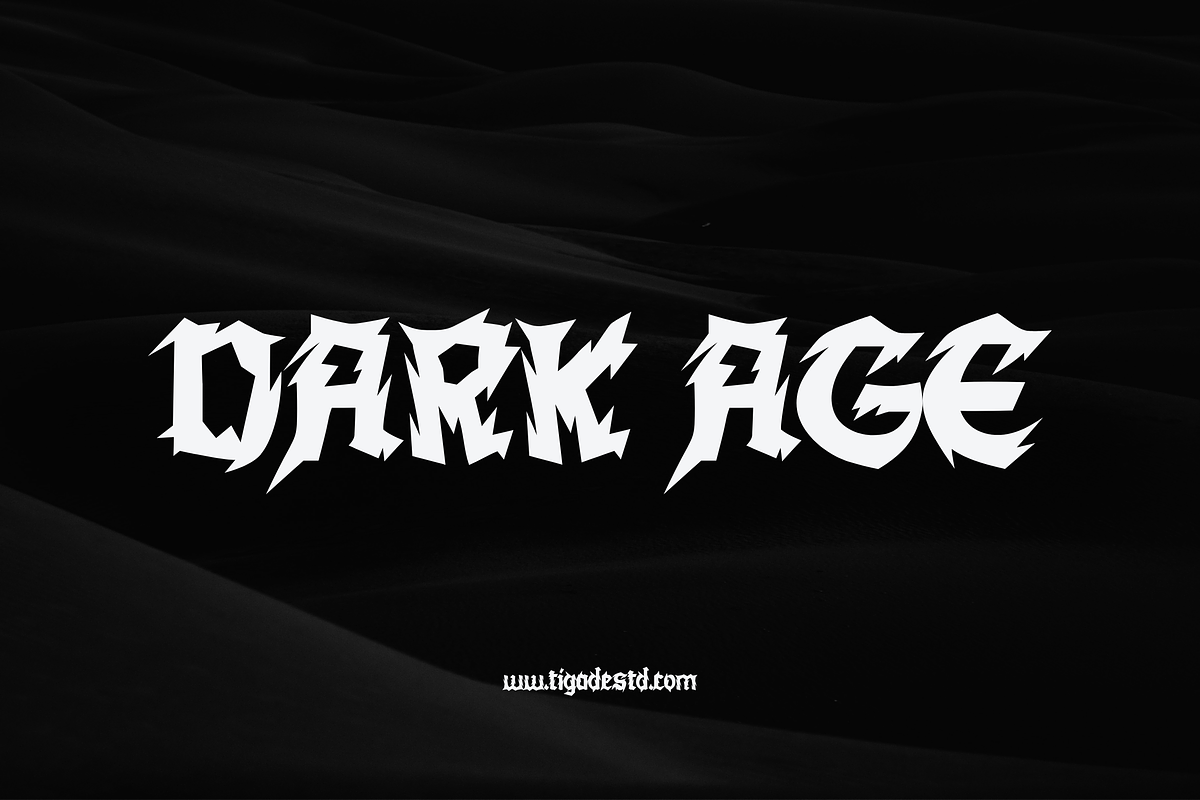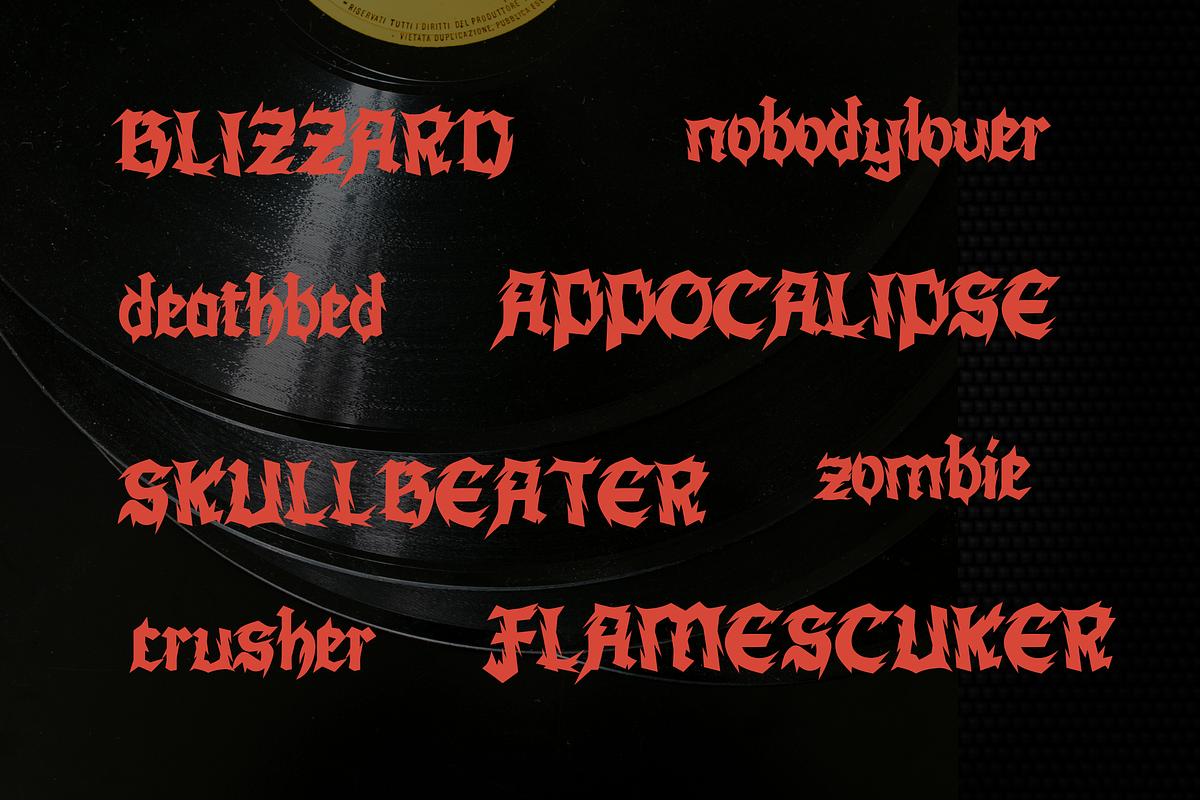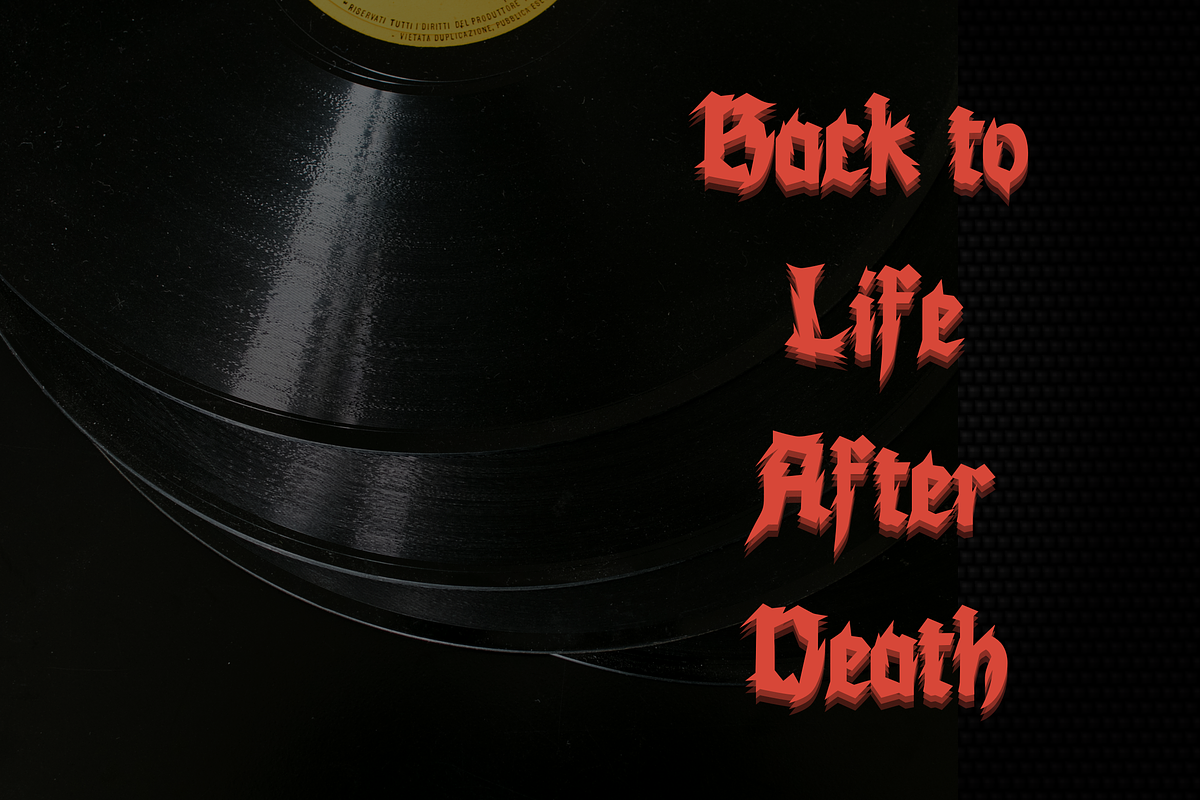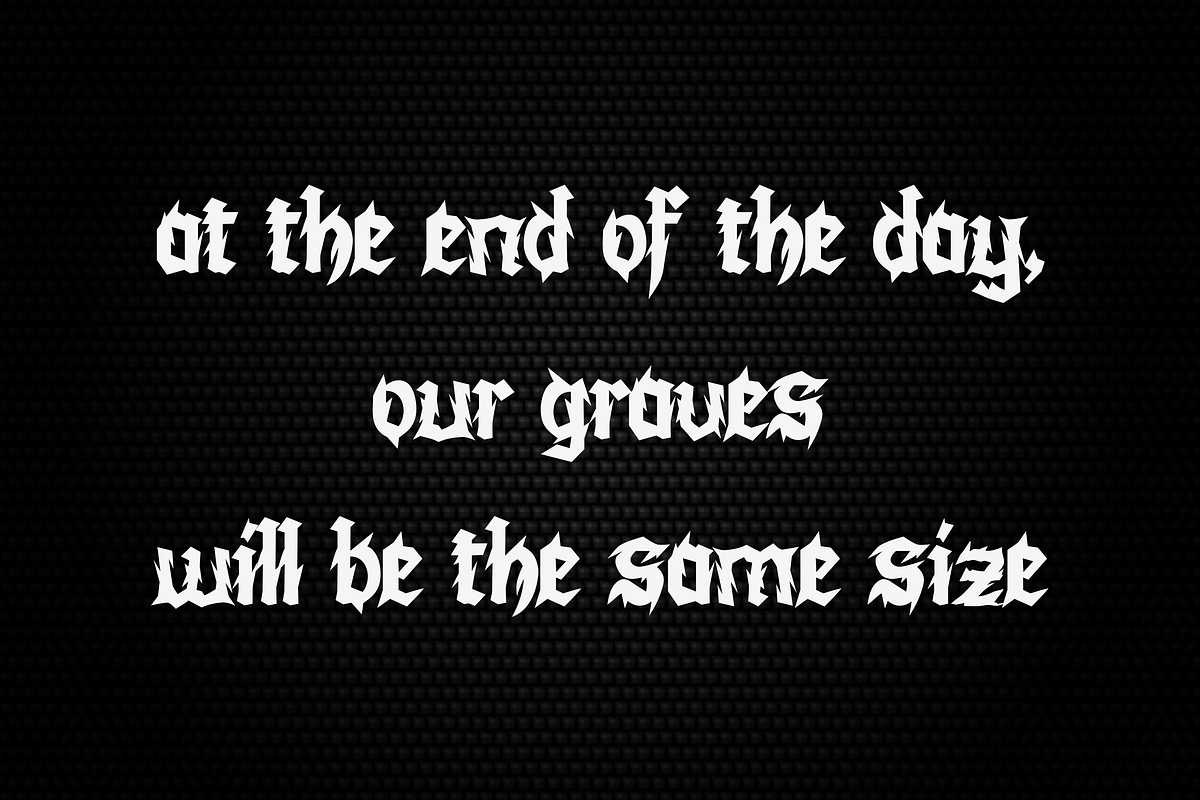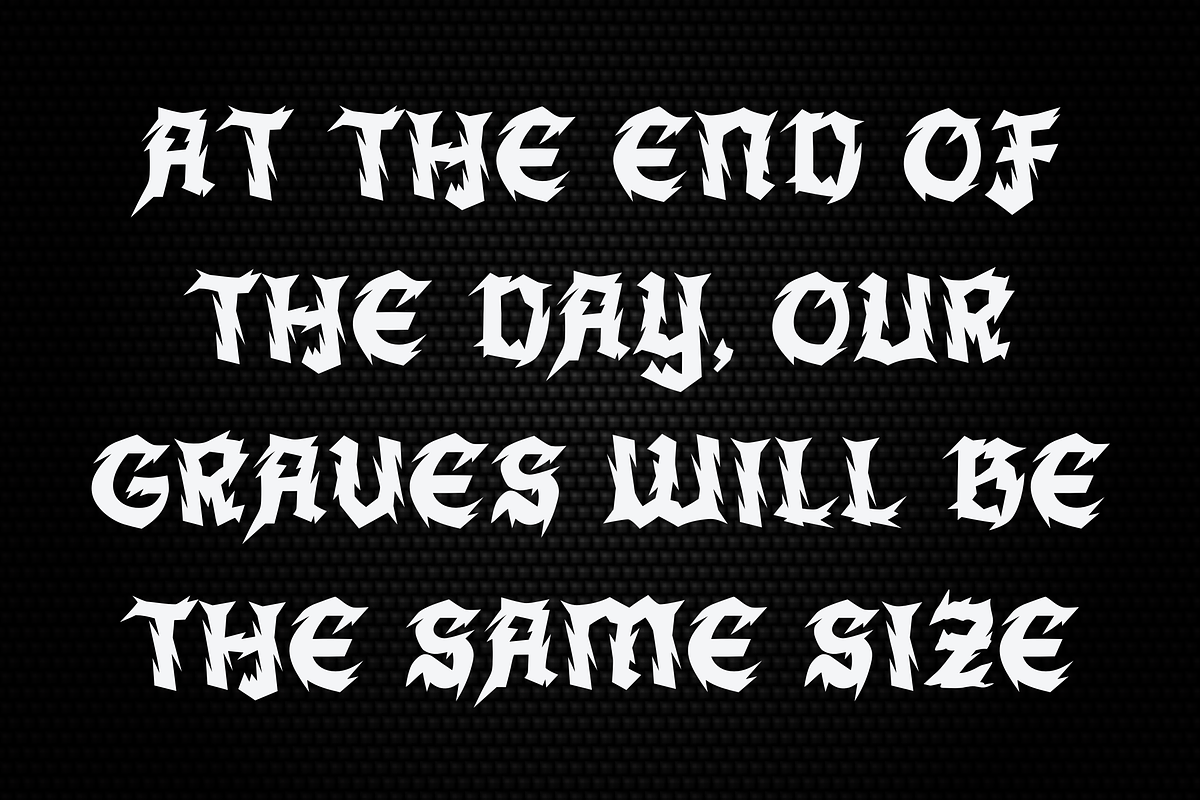
Dark Age Black Metal Font
Dark Age font is awesome black metal font. This font is most wanted font in black metal fans. Dark Age is awesome for your logo, your band, for merchandise, for clothing, and for your band concert